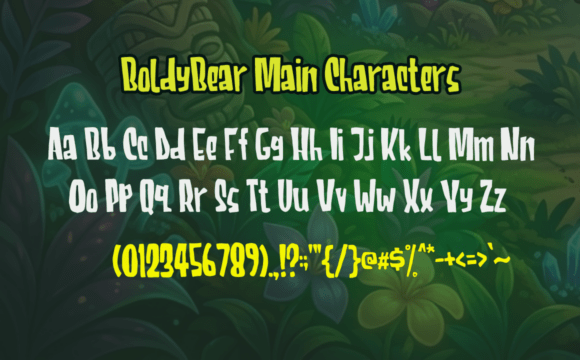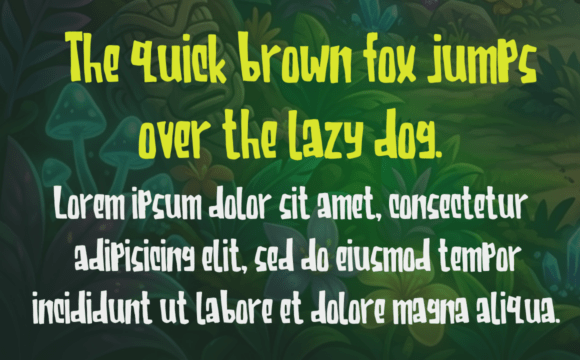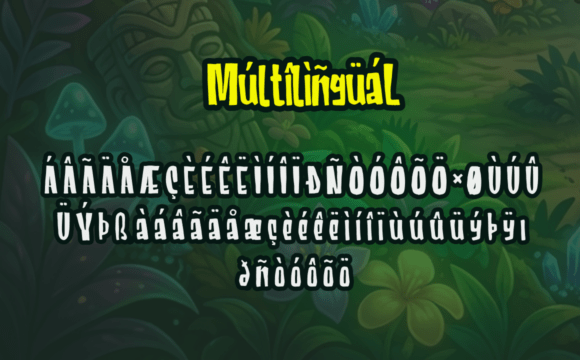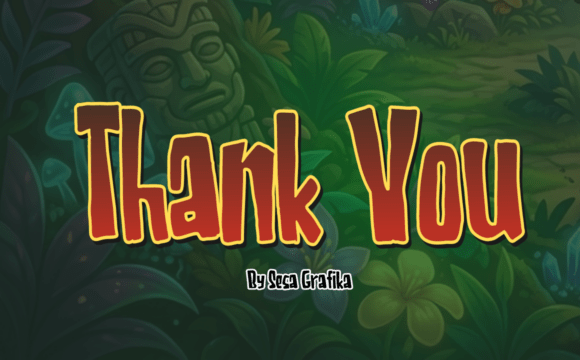
Unleash Your Creativity with Boldy Bear Font: The Ultimate Display Typeface for Adventure-Seeking Designers
Are you ready to embark on a grand adventure with a font that’s as playful as it is pioneering? Look no further than Boldy Bear, a high-energy display typeface that’s sure to capture the hearts of designers and crafters alike. With its unique blend of classic jungle adventure titles and modern mobile gaming vibes, Boldy Bear is the perfect choice for anyone looking to add a touch of excitement to their designs.
The Unique Characteristics of Boldy Bear Font
So, what sets Boldy Bear apart from other display typefaces on the market? For starters, its tall, blocky letterforms are uniquely characterized by rhythmic, hand-drawn “notched” terminals that give it a distinctly playful feel. And with a slightly irregular baseline, Boldy Bear bridges the gap between classic jungle adventure titles and modern mobile gaming, making it the perfect choice for designers who want to create something truly eye-catching.
But that’s not all – Boldy Bear also boasts a heavy structural weight that gives it a bold, attention-grabbing presence. Whether you’re using it for independent toy branding, children’s adventure book titles, educational game interfaces, or high-impact social media headers, Boldy Bear is sure to make a statement.
The Perfect Choice for Designers and Crafters
So, what kind of projects is Boldy Bear best suited for? The possibilities are endless, but here are a few ideas to get you started:
- Independent toy branding: With its playful, adventurous vibe, Boldy Bear is the perfect choice for toy brands that want to stand out from the crowd.
- Children’s adventure book titles: Whether you’re creating a picture book, a chapter book, or a young adult novel, Boldy Bear is sure to capture the imagination of your readers.
- Educational game interfaces: With its bold, attention-grabbing presence, Boldy Bear is the perfect choice for educational games that want to engage and inspire young learners.
- High-impact social media headers: Whether you’re creating a social media campaign for a brand or a personal project, Boldy Bear is sure to turn heads.
Why Choose Boldy Bear Font?
So, why choose Boldy Bear over other display typefaces on the market? Here are just a few reasons:
- Unique and eye-catching design: With its rhythmic, hand-drawn “notched” terminals and slightly irregular baseline, Boldy Bear is sure to stand out from the crowd.
- High-energy personality: Whether you’re creating a children’s book or a social media campaign, Boldy Bear’s playful, adventurous vibe is sure to capture the imagination of your audience.
- Versatile and adaptable: From independent toy branding to educational game interfaces, Boldy Bear is the perfect choice for a wide range of design projects.
Getting Started with Boldy Bear Font
Ready to unleash your creativity with Boldy Bear? Here are a few tips for getting started:
- Experiment with different design projects: Whether you’re creating a logo, a poster, or a social media campaign, Boldy Bear is sure to add a touch of excitement to your designs.
- Play with different font sizes and colors: With its bold, attention-grabbing presence, Boldy Bear is sure to make a statement – no matter what size or color you choose.
- Combine with other fonts: For a truly unique look, try combining Boldy Bear with other fonts to create a one-of-a-kind design.
So why wait? Embark on a grand adventure with Boldy Bear font today, and discover a world of creative possibilities!